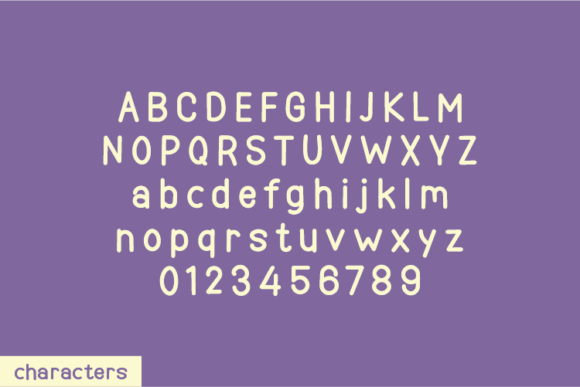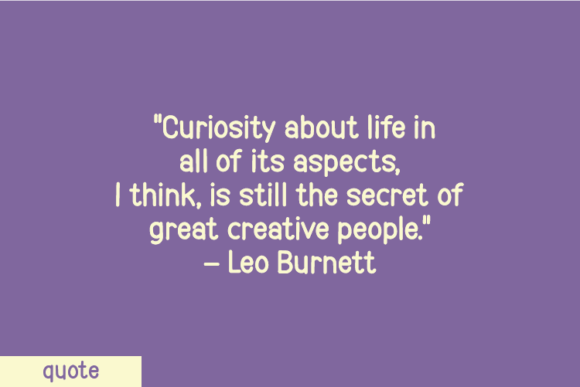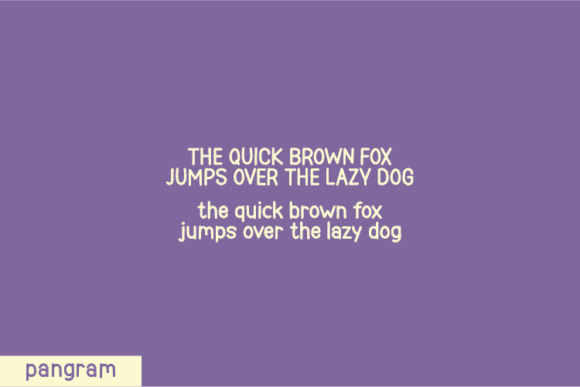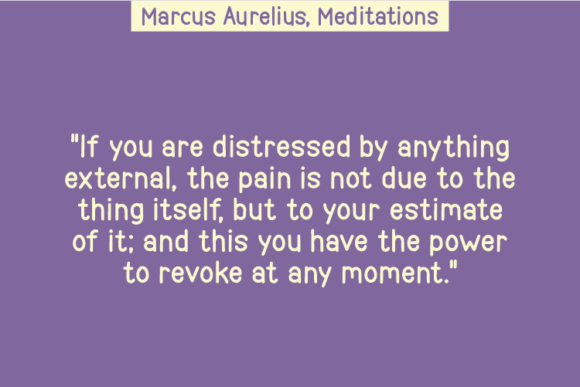
Introducing Attentions Font: A Unique Handwritten Style for Creative Designs
In the world of typography, fonts play a crucial role in conveying messages, expressing emotions, and adding personality to designs. For designers, crafters, and creative enthusiasts, finding the perfect font can be a daunting task. However, if you’re looking for a distinctive and eye-catching font, look no further than Attentions Font. This natural handwritten font is a game-changer, offering a unique twist that sets it apart from other fonts.
The Unique Feature of Attentions Font
So, what makes Attentions Font stand out? The answer lies in its distinctive approach to character indentation. Unlike other handwritten fonts, Attentions Font is crafted without changing a single node in each character’s indentation. This means that every letter, number, and symbol has a natural, organic feel that is both visually appealing and authentic.
This unique feature gives Attentions Font a charming, human touch that is perfect for designs that require a personal and emotive feel. Whether you’re creating quotes, notes, t-shirts, or any product design, Attentions Font is an excellent choice.
Attentions Font is an incredibly versatile font that can be used in a wide range of creative projects. Here are some ideas to get you started:
- Quotes and Inspirational Messages: Add a personal touch to your quotes and inspirational messages with Attentions Font. Its unique style makes it perfect for social media posts, posters, and flyers.
- Notes and Journaling: Use Attentions Font to add a decorative touch to your notes, journals, and planners. Its natural, handwritten style makes it perfect for bullet journaling and creative journaling.
- T-Shirts and Apparel: Create eye-catching designs for t-shirts, hoodies, and other apparel with Attentions Font. Its unique style is sure to turn heads.
- Product Design: Use Attentions Font to add a personal touch to your product designs, such as packaging, labels, and branding materials.
Why Choose Attentions Font?
With so many fonts available, why choose Attentions Font? Here are just a few reasons:
- Unique Style: Attentions Font offers a distinctive style that sets it apart from other fonts.
- Natural and Organic: Its natural, handwritten style makes it perfect for designs that require a personal touch.
- Versatile: Attentions Font can be used in a wide range of creative projects, from quotes and notes to t-shirts and product design.
- Easily Readable: Despite its unique style, Attentions Font is easily readable, making it perfect for body text and captions.
Tips for Using Attentions Font
To get the most out of Attentions Font, here are some tips:
- Experiment with Sizes: Attentions Font looks great in a variety of sizes, from small captions to large headings.
- Pair with Other Fonts: Try pairing Attentions Font with other fonts to create a unique and eye-catching combination.
- Use for Emphasis: Use Attentions Font to add emphasis to certain words or phrases in your designs.
- Add Texture and Patterns: Add texture and patterns to your designs to give them a more organic feel.
In conclusion, Attentions Font is a unique and versatile font that is perfect for designers, crafters, and creative enthusiasts. Its natural, handwritten style and distinctive approach to character indentation make it a standout font that can add a personal touch to any design. Whether you’re creating quotes, notes, t-shirts, or product designs, Attentions Font is an excellent choice. So why not give it a try and see how it can elevate your designs?